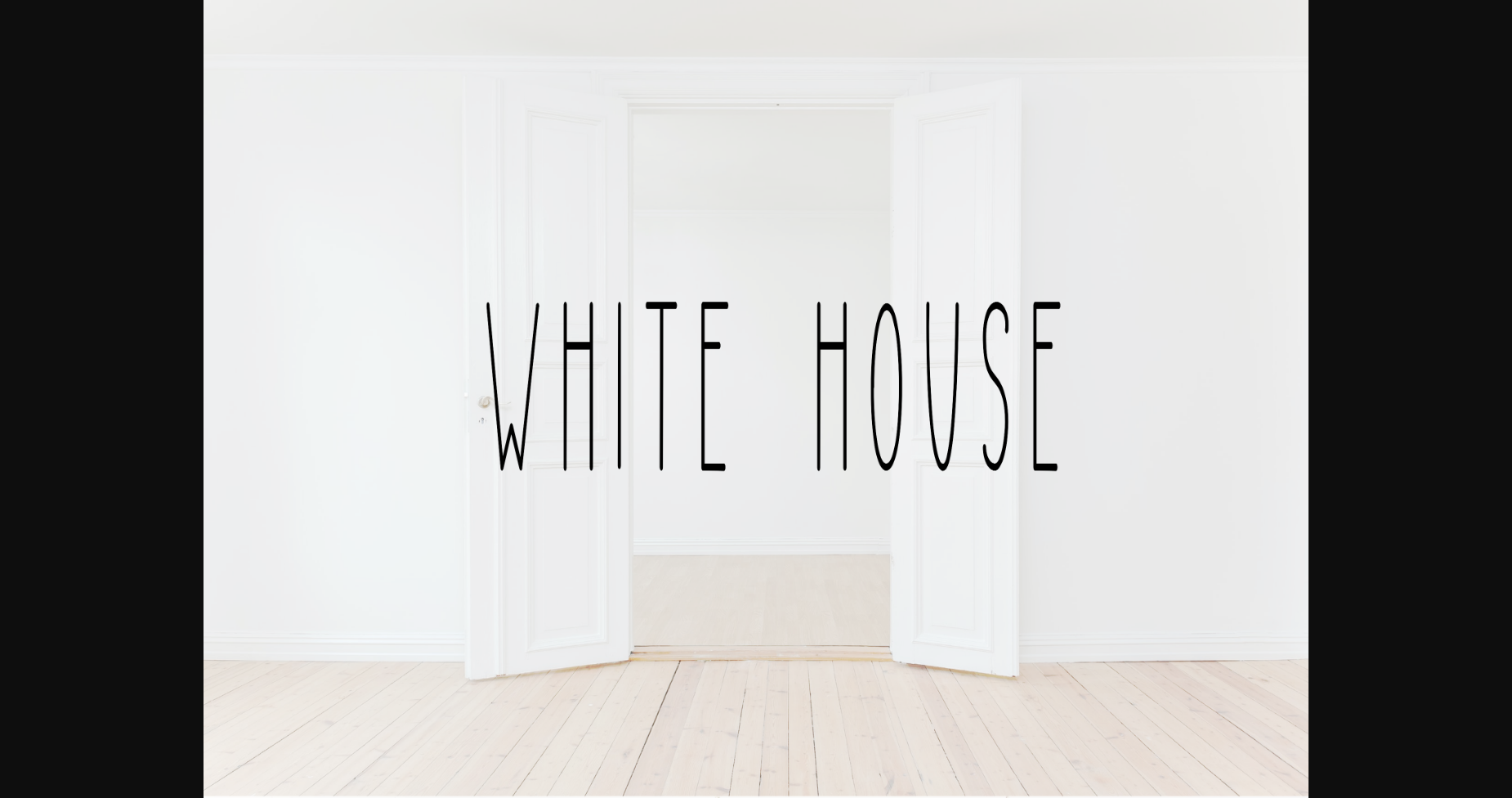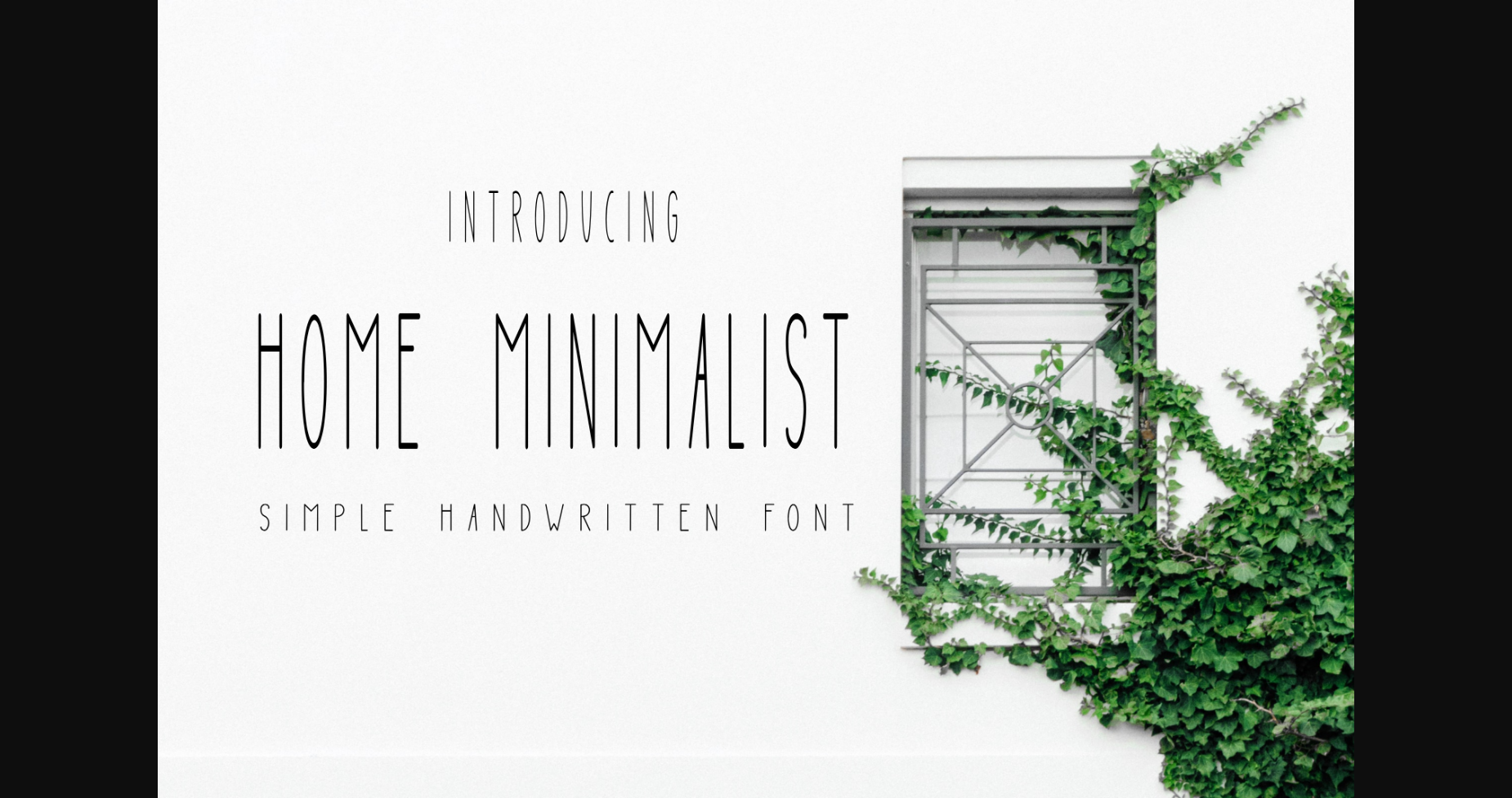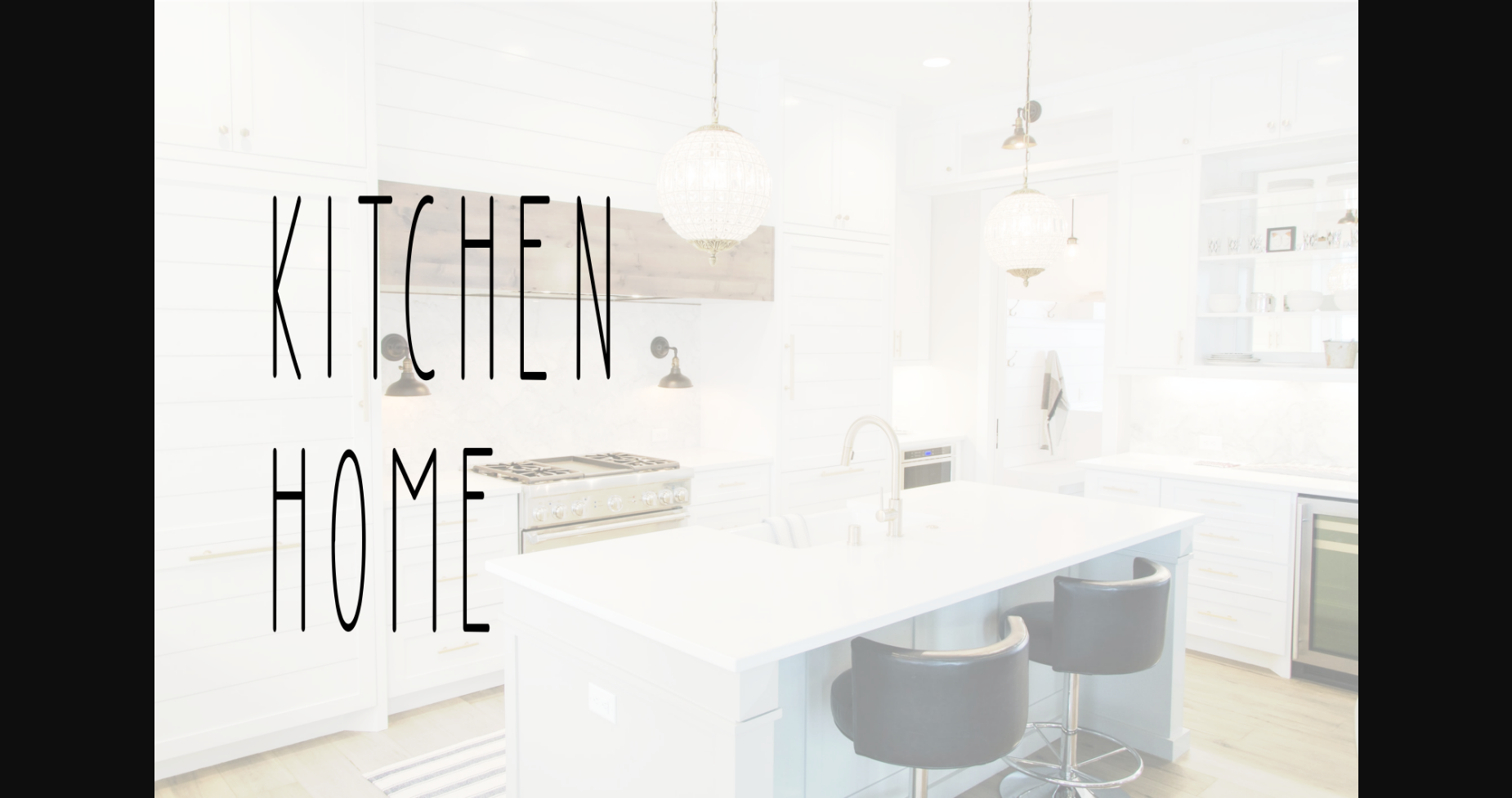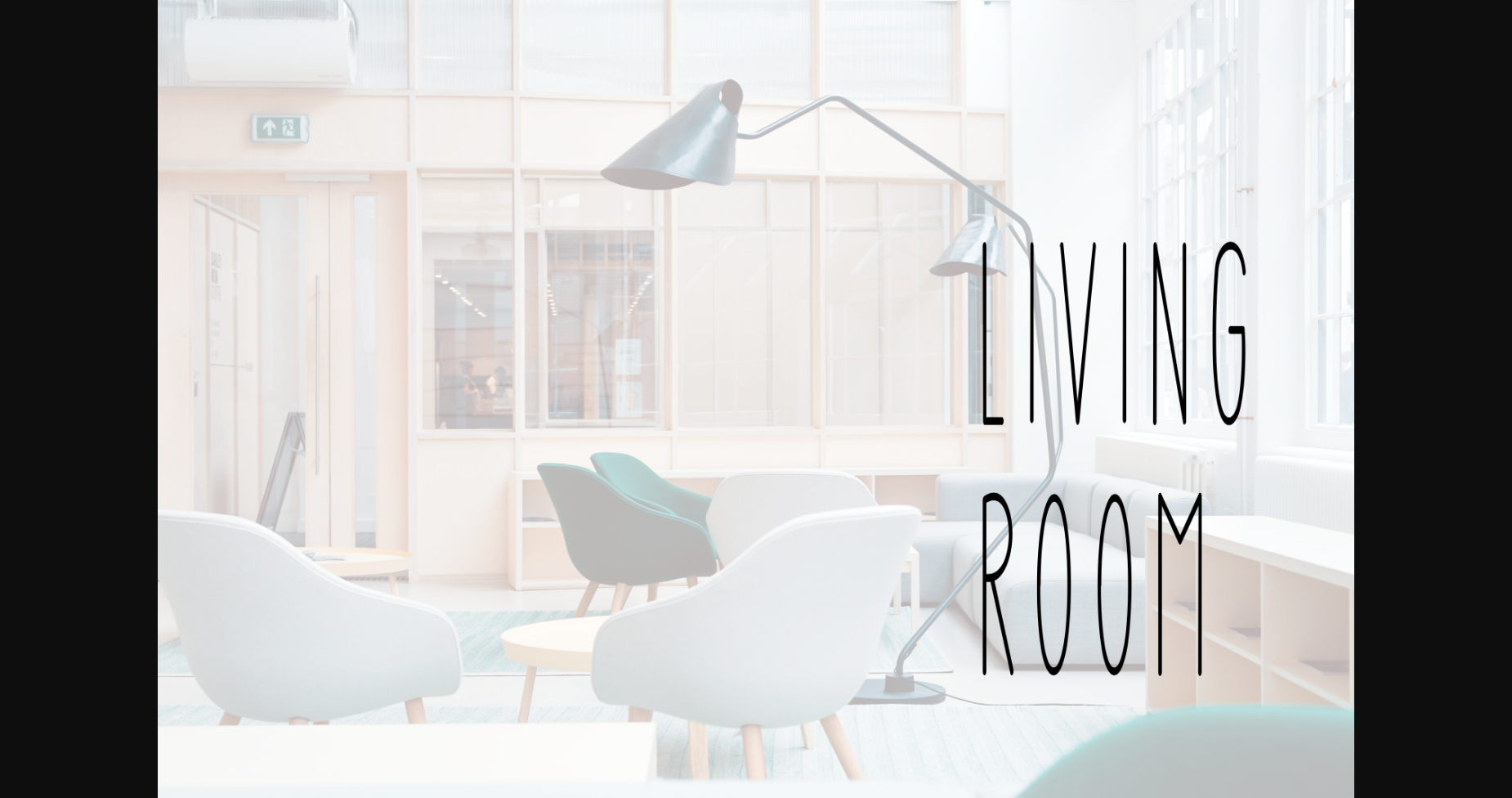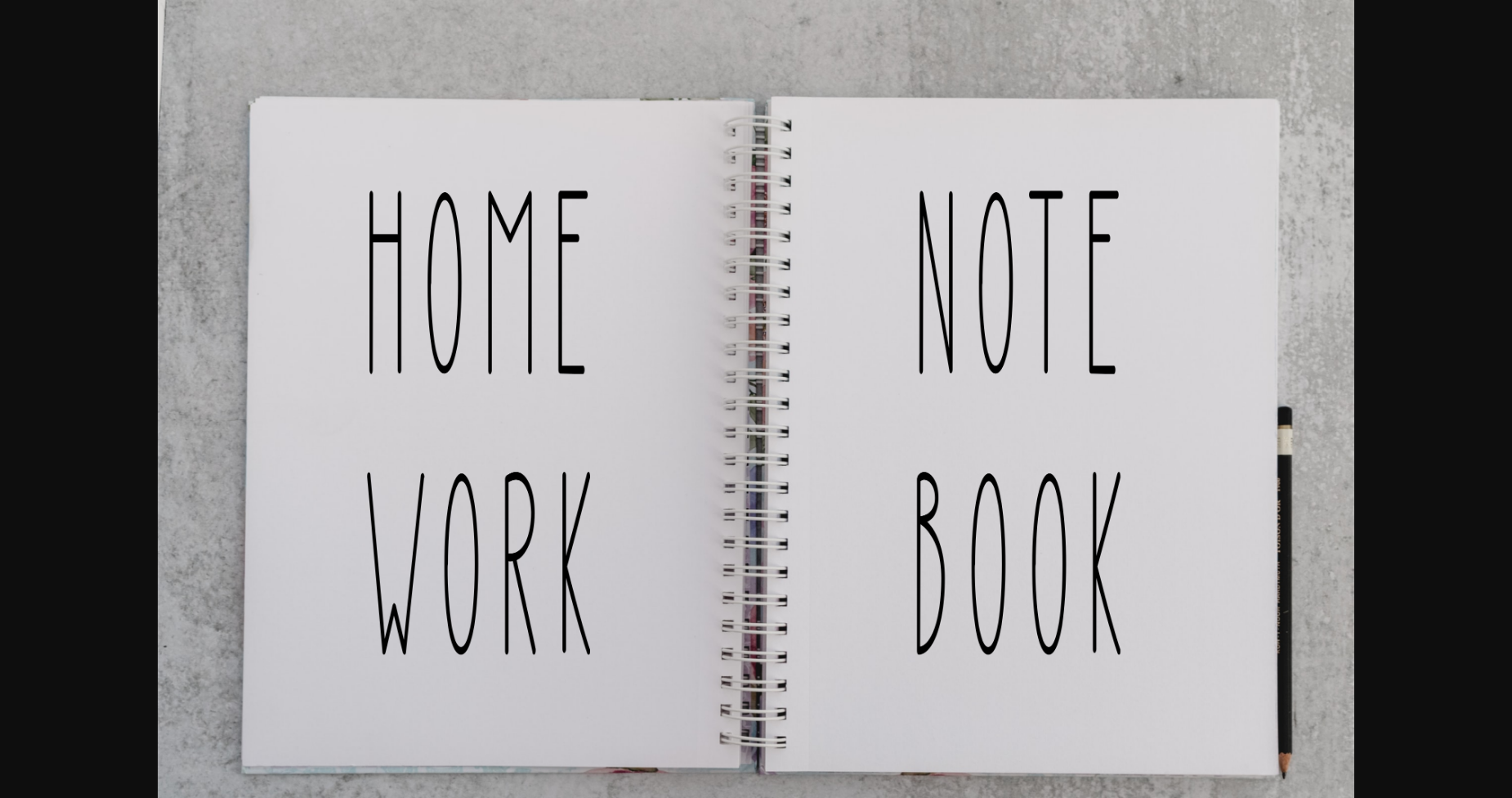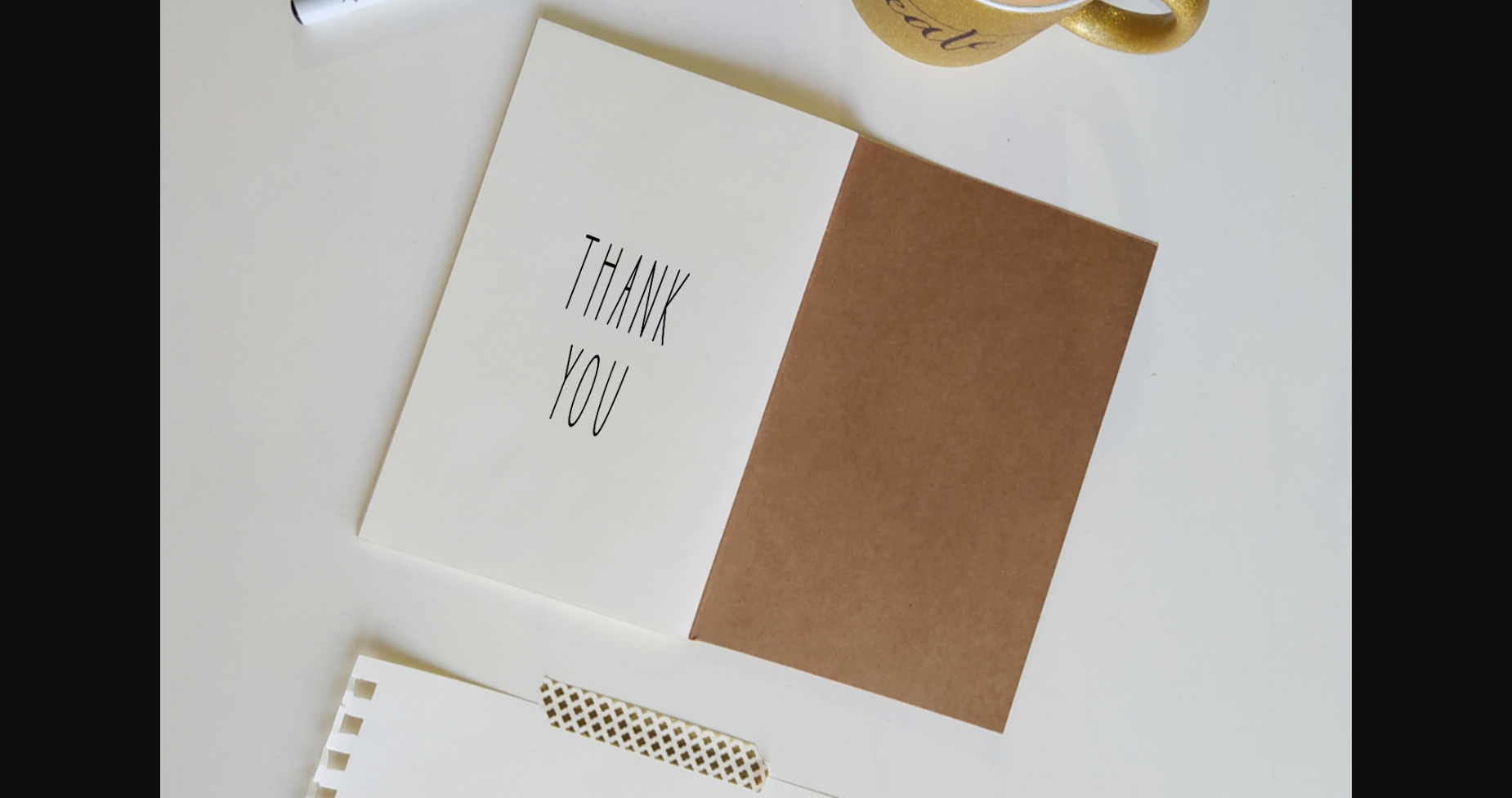
Home Minimalist is a cute, simple and clean sans serif font. No matter the topic, this font will be an incredible asset to your fonts’ library, as it has the potential to elevate any creation!